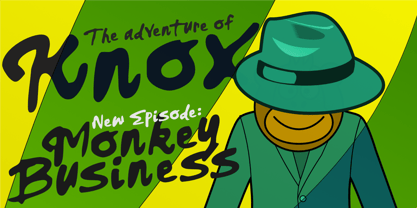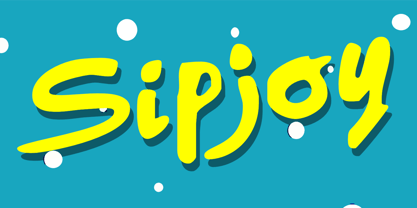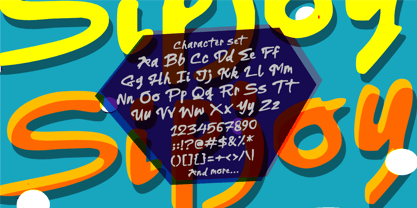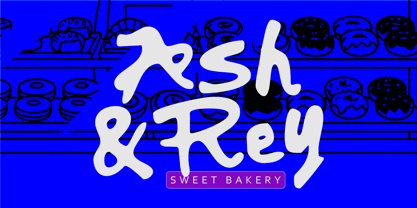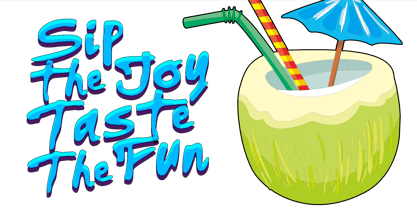
Sipjoy
by Olivetype
The Sipjoy Font Family was designed by Nurul Hidayani and published by Olivetype. Sipjoy contains 1 styles. More about this family
Sipjoy is a fun and playful handwritten font that brings a burst of happiness into every design. With its smooth curves, bouncy letterforms, and friendly personality, Sipjoy is perfect for projects that want to feel lively, sweet, and full of charm.
Inspired by the joy of colorful drinks, desserts, and cheerful moments, this font is designed to stand out while staying easy to read. Whether you're creating branding for food and beverage products, social media graphics, or eye-catching packaging, Sipjoy adds a fresh and delightful touch.
Perfect for food and drink branding such as boba, juice, and snacks, Sipjoy also shines in packaging design, logo and signature styles, social media posts, and eye-catching posters or merchandise. Its playful and friendly character makes it especially suitable for kids-themed projects and any design that aims to feel fun, cheerful, and full of personality.
Add a splash of fun and let your designs Sip the Joy!